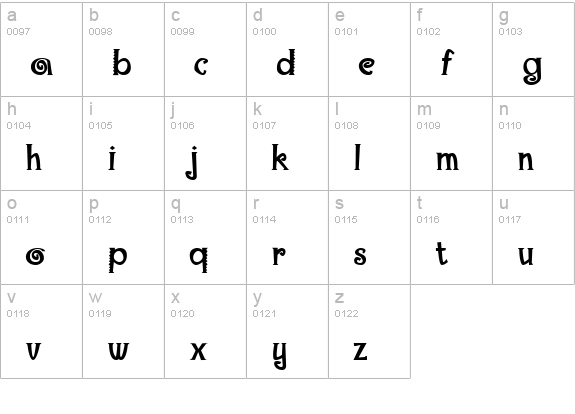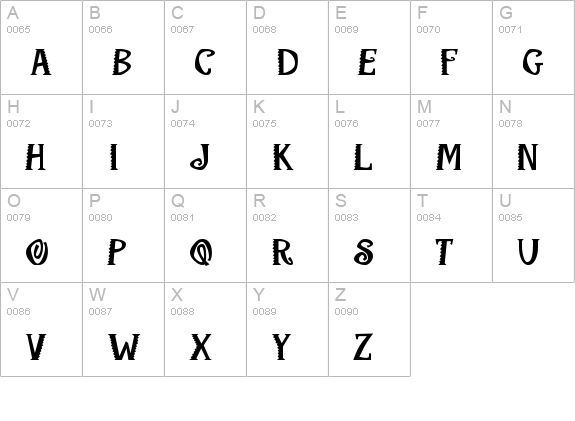
Maraca Extrabold Regular Font Details
Maraca Extrabold Regular is an extra-heavy, attention-grabbing variant in the Maraca typeface family \xE2\x80\x94 well suited to high-impact headlines, posters, and bold branding.
Maraca Extrabold Regular font is a stunning display typeface that exudes confidence and power. Designed with utmost precision and attention to detail, this font commands attention and adds a touch of boldness to any design project. With its thick, heavy strokes and strong letterforms, Maraca Extrabold Regular font is perfect for headlines, logos, posters, and any other design that requires a strong visual impact. Its unique and cohesive design makes it stand out from the crowd, ensuring that your message is delivered with utmost clarity and style. One of the best features of Maraca Extrabold Regular font is that it is freely available to download at FontsMarket.com. This means that designers, artists, and creatives from all walks of life can access this incredible font without any hassle. Whether you are a professional designer or a passionate hobbyist, Maraca Extrabold Regular font gives you the freedom to express your creativity and elevate your designs to new heights. Furthermore, the versatility of Maraca Extrabold Regular font allows it to work seamlessly across various design projects. From bold and impactful headlines to elegant and sophisticated branding, this font adapts effortlessly to any style or aesthetic. Its clean and legible letterforms ensure that your message is delivered with clarity and impact, while its strong presence creates a lasting impression on the viewer. In conclusion, Maraca Extrabold Regular font is a must-have for any designer looking to make a bold statement. Its powerful and confident design, combined with its wide range of applications, makes it a versatile and valuable addition to any font collection. Best of all, it is freely available to download at FontsMarket.com, giving you the opportunity to unleash your creativity and take your designs to new heights.